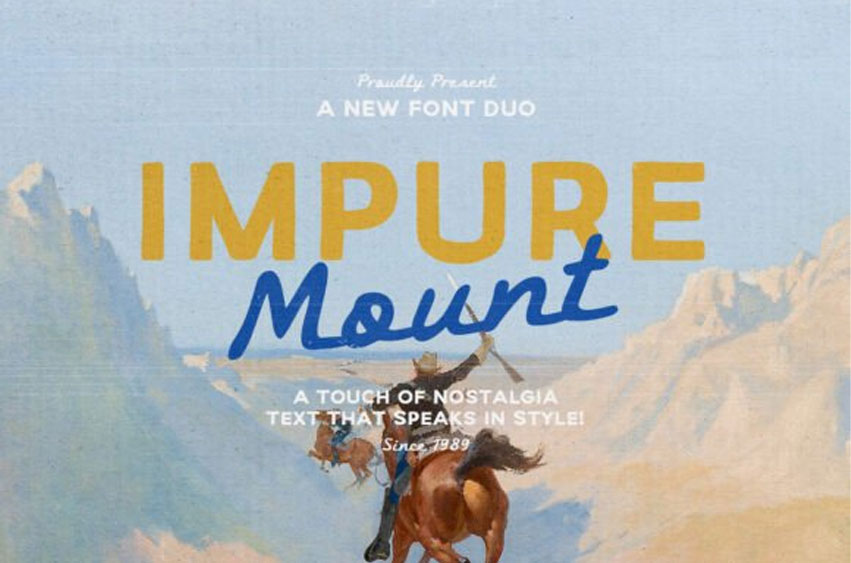
Impure Mount Font
Impure Mount Font is a nostalgic font duo featuring a simple sans serif and a unique hand-lettered script. This versatile font can be used for various purposes, including posters, book covers, logos, branding, and quotes.
It is particularly well-suited for projects with outdoor and adventure themes. Additionally, Impure Mount supports multiple languages.